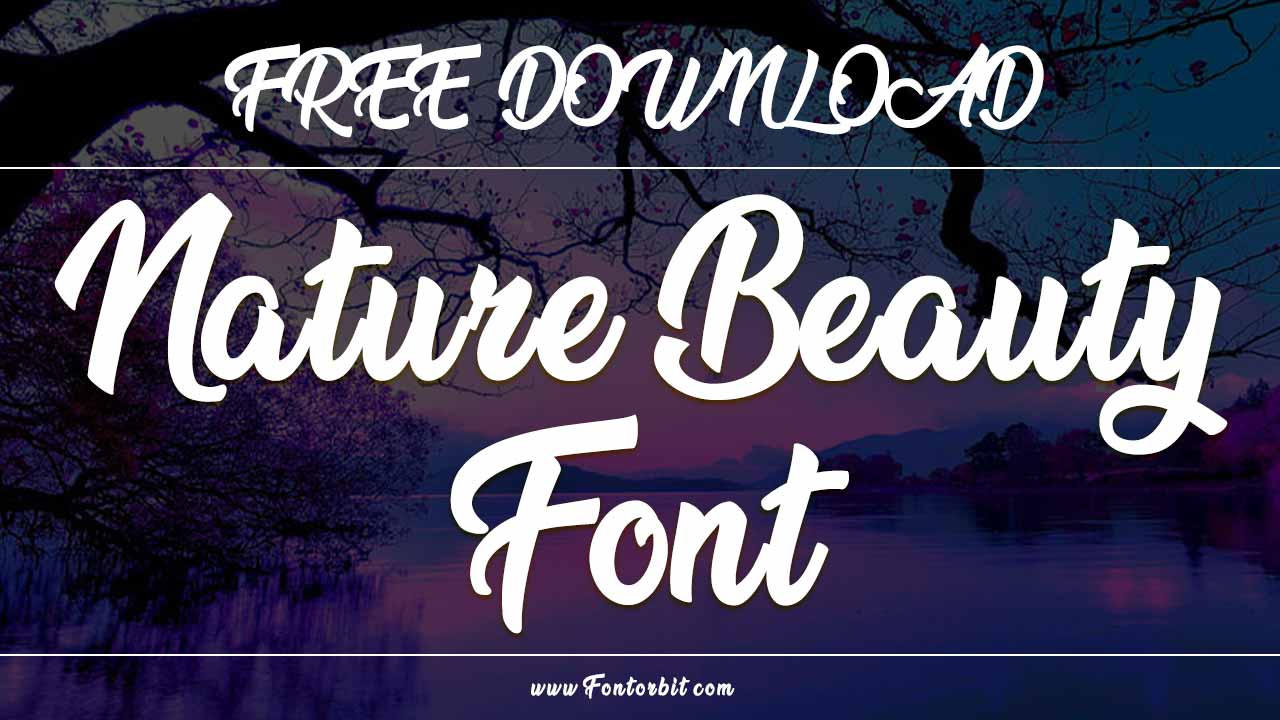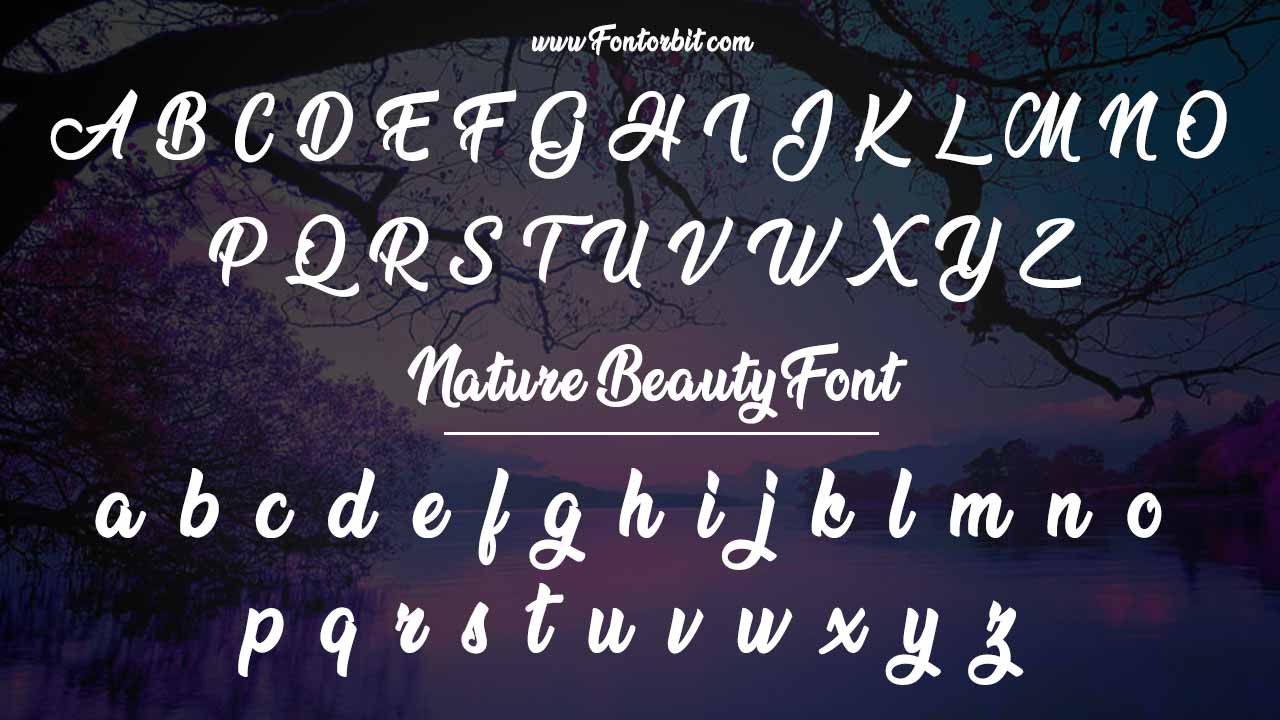
Regarding fonts, there’s something undeniably captivating about the perfect blend of elegance and readability. Enter Nature Beauty Fon, a stylish script font that strikes the ideal balance between sophistication and approachability. If you’ve ever been on the hunt for a font that will elevate your creative projects, you’ll know that the right choice can make all the difference. This font, designed by Billy Argel Fonts, is a testament to the power of simplicity, elegance, and natural beauty.
Nature Beauty Font Details
Whether you’re designing a logo, creating greeting cards, or adding a personal touch to packaging, Nature Beauty Font fits the bill. It’s versatile enough to handle various creative needs and adds a special flair to any design. As someone who loves exploring new design tools and fonts, I’ve found that certain fonts can evoke emotions, and this one does so with effortless grace.
| Feature | Details |
| Designer | Billy Argel Fonts |
| Font Type | Script, Handwritten |
| Style | Elegant, Modern, Vintage |
| Best Used For | Logos, Branding, Greeting Cards, Packaging, Invitations |
These are the core details, but there’s so much more under the surface. It’s not just about the font type. It’s about the impact it has when used in your designs. From business branding to personal touches on a greeting card, this font transforms the simplest projects into something special.
Nature Beauty Font Family Styles
Nature Beauty Font comes in a few different styles, giving you flexibility depending on your design needs. Each variation has its own unique charm, making it suitable for a wide range of projects.
- Nature Beauty Regular – The standard version, featuring elegant script strokes. This is the version I’d recommend if you’re after something classic but not too flashy. It works wonders in a variety of contexts.
- Nature Beauty Alternates – If you opt for the commercial version, you can access extra flourishes and ligatures, adding even more personality to your designs. This option is ideal for enhancing your designs to a higher level.
- Nature Beauty Bold – A slightly thicker version of the font, providing a stronger visual impact. This style is fantastic for headers or any place you want to make a statement without overwhelming the design.
Each style has its unique application, depending on the tone you’re aiming for with your project. From refined and subtle to bold and striking, a style suits every need.
Why Choose Nature Beauty Font?
So, why should you consider using Nature Beauty Font for your next project? Let’s break it down:
- Elegant And Readable: One of the biggest struggles with some script fonts is that they can be hard to read, especially when used for longer text. Nature Beauty is the opposite. While it’s undeniably elegant, the design is clean enough to maintain readability, making it ideal for branding and packaging. When I first used it, I found that it added a touch of sophistication without sacrificing clarity.
- Handwritten Touch: There’s something deeply personal about a handwritten font. It brings your design an organic, authentic feel that instantly makes it more relatable. Whether you’re designing a logo for a personal brand or creating a heartfelt invitation, this font has a way of adding that human touch.
- Modern Yet Timeless: The blend of modern elements and vintage-inspired strokes makes Nature Beauty Font a versatile choice. I’ve used it for everything from Instagram posts to holiday cards, and it always fits the bill. It has that timeless quality that works across different contexts and design styles.
- Alternates & Special Characters: If you upgrade to the commercial version, you’ll gain access to alternates and special characters that add a whole new dimension to your designs. These details might seem small, but they can make a significant difference in elevating the overall aesthetic.
- Compatible With Major Design Tools: Using Photoshop, Illustrator, Canva, or Cricut, you’ll have no trouble integrating Nature Beauty Font into your workflow. It’s a smooth experience, which I truly appreciate as a designer, no tech headaches to worry about.
Where Can You Use Nature Beauty Font?
The beauty of Nature Beauty Font lies in its versatility. Here’s a glimpse of where it can shine:
- Branding & Logos: If you’re a business owner or designer, you know that your logo is more than just a symbol—it’s an extension of your brand’s identity. Nature Beauty Font adds a sophisticated yet approachable vibe to logos, making it perfect for both personal and professional brands.